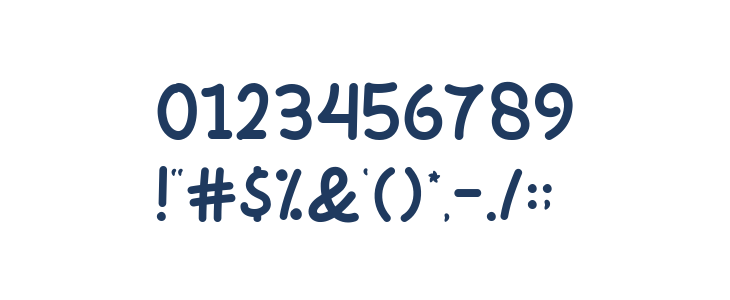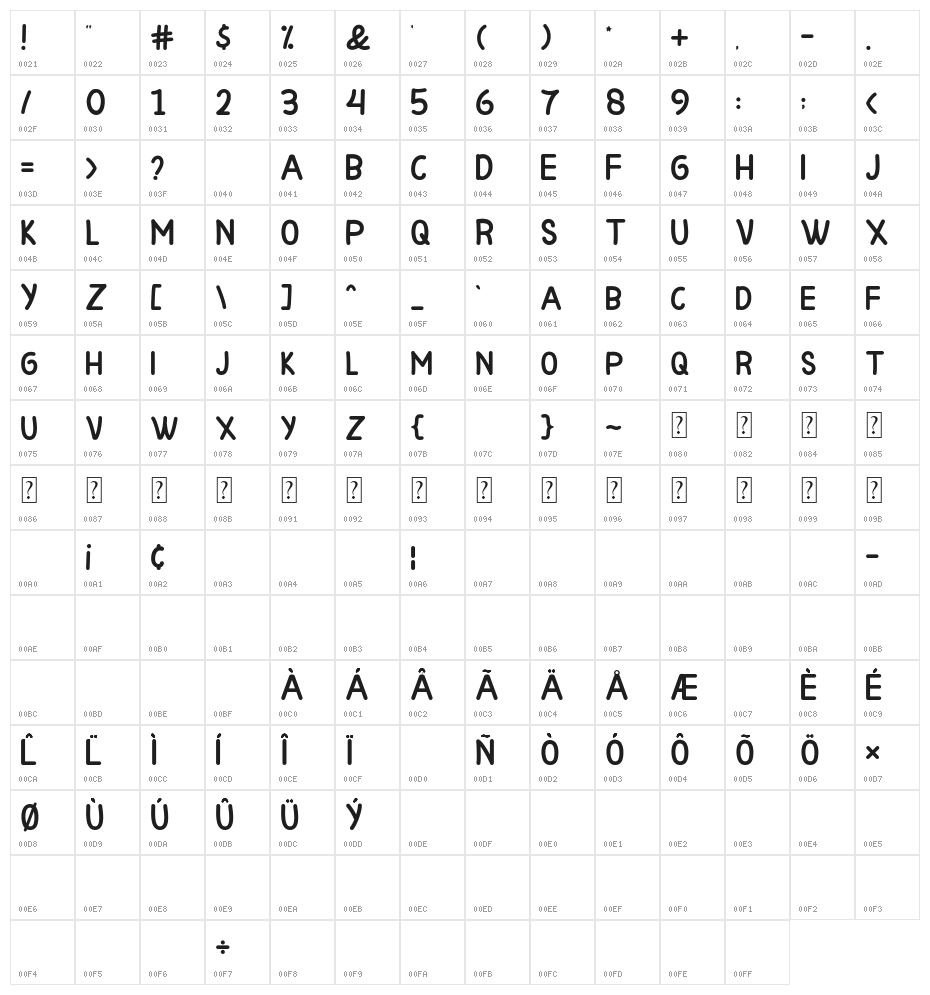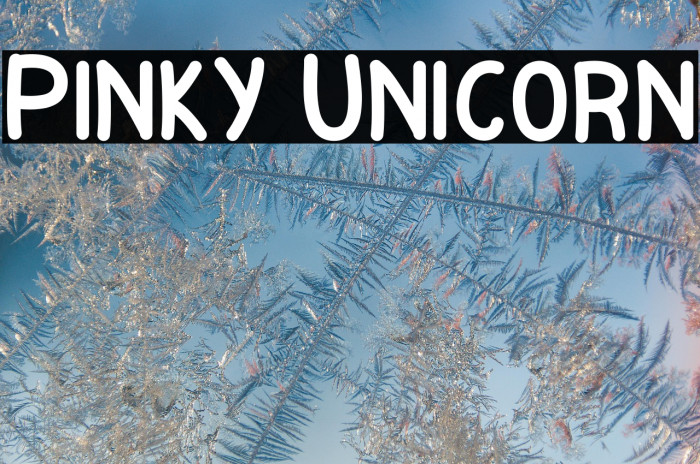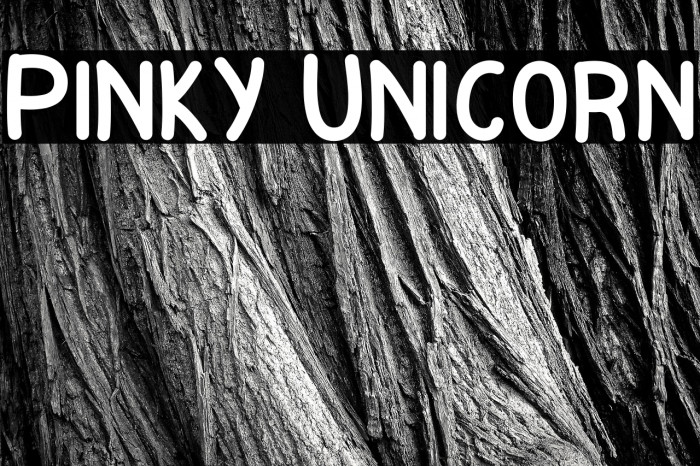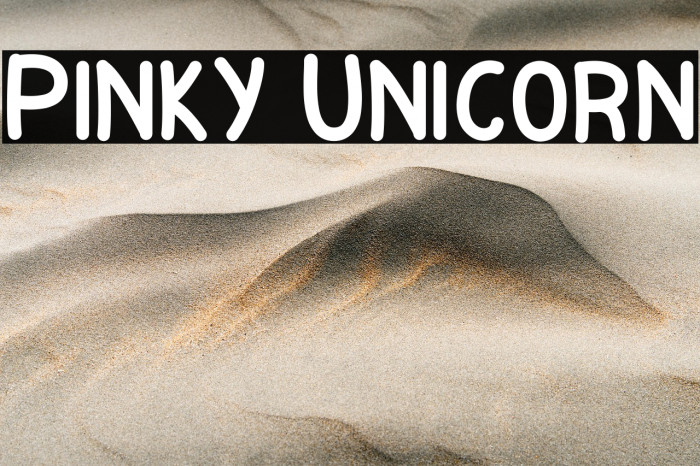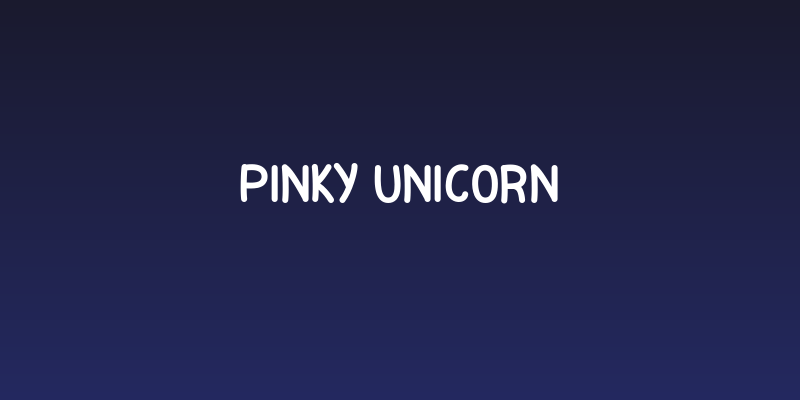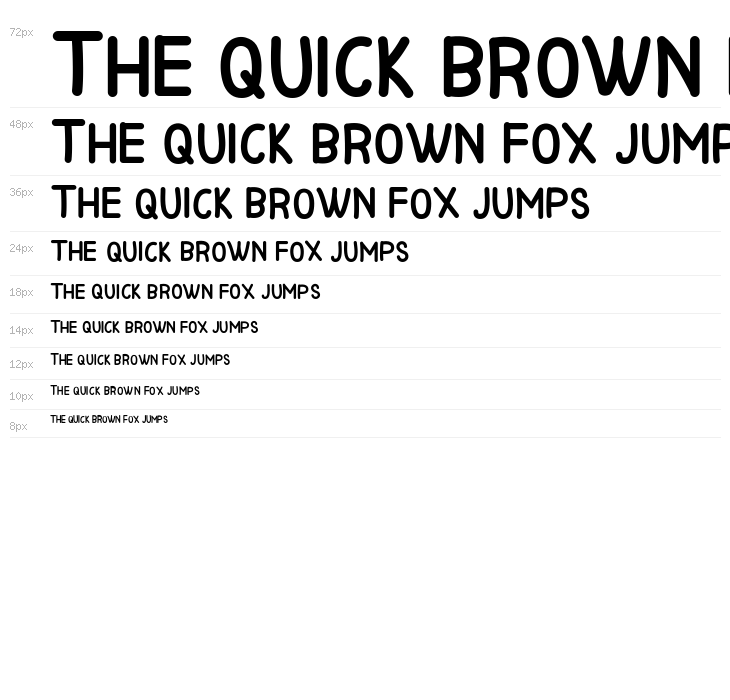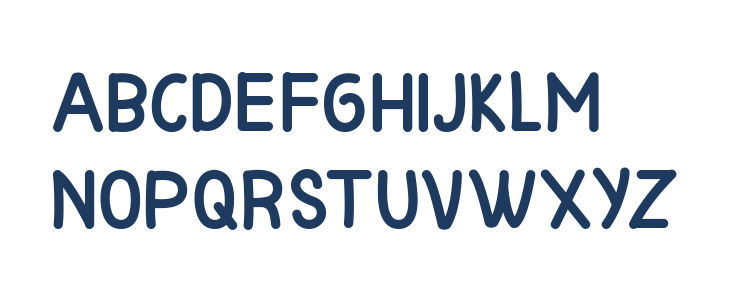
Pinky Unicorn Font
Pinky Unicorn Description
This playful and whimsical font features rounded, bold characters that convey a sense of fun and creativity. The letters are evenly spaced with a consistent stroke width, giving it a uniform appearance. Its smooth curves and lack of sharp edges make it approachable and friendly. The font includes a full set of uppercase and lowercase letters, numbers, and a variety of special characters, making it versatile for different uses. Its design is reminiscent of hand-drawn lettering, adding a personal touch to any project.
| Proposed Projects | Ideal for children's books, playful branding, greeting cards, and creative posters. |